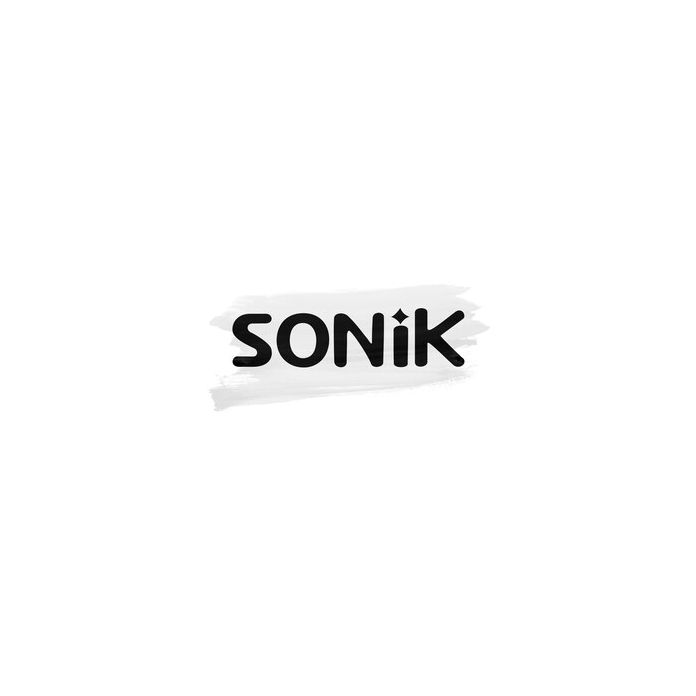
A Sonik Display font that stands firm. The model is attractive and coherent, so it is very suitable for your classy design collection. You can modify it according to your taste!